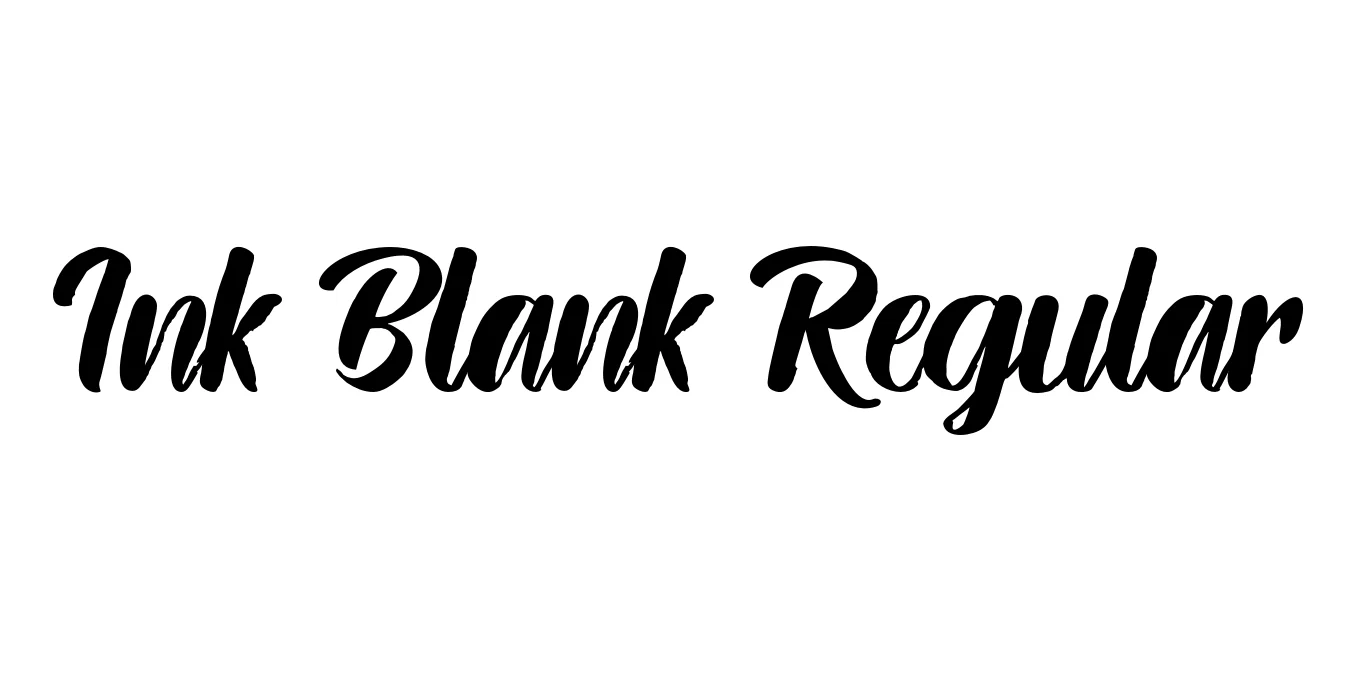
Ink Blank Regular
Designed by Andika Fez (Dikas Studio)
| Category | Script / Brush |
| Designer | Andika Fez (Dikas Studio) |
Ink Blank Regular is a contemporary script font that captures the authentic essence of hand-drawn brush calligraphy. Developed by Dikas Studio, this typeface features fluid, energetic strokes and a natural texture that mimics real ink flow on paper. It was designed to provide a raw, organic aesthetic for modern creative projects that require a personal, artisanal touch without sacrificing legibility.
Since its release, it has become a favorite among designers seeking a balance between professional craftsmanship and a casual, street-style vibe. The font includes a comprehensive set of characters that maintain high visual impact while offering the expressive variability found in true brush lettering, making it a versatile tool for high-end branding, digital media, and physical product design.
Ink Blank Regular Best Uses
Perfect for creating organic, signature-style brand identities and wordmarks.
Ideally suited for high-contrast t-shirt prints and streetwear labels.
Excellent for eye-catching quotes, YouTube thumbnails, and Instagram stories.
Adds a premium, handmade feel to artisanal product labels and boxes.